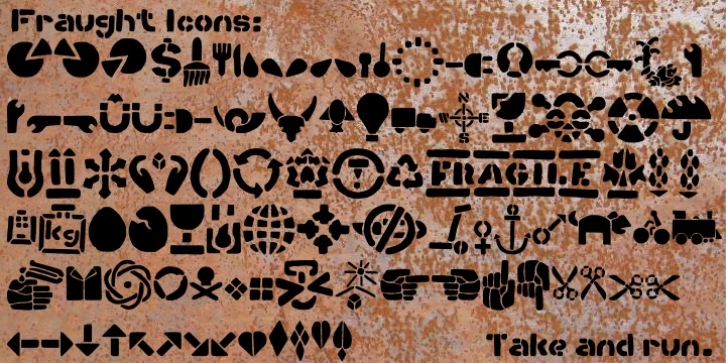
Fraught was designed by Heikki Hämäläinen and published by Morganismi. Fraught contains 2 styles and family package options.
Fraught is a rough tough stencil font for hard use. Feel the touch of cracked concrete, rusty iron and undressed board.